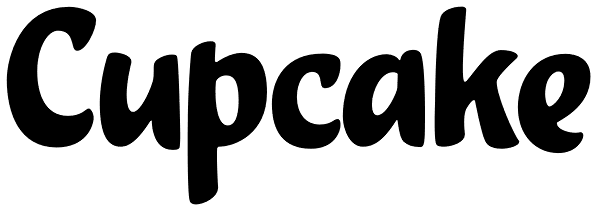
Cupcake
Cupcake is a font for those with a sweet tooth. It flares the taste buds with its creamy construct and makes them drool over a sandwich, a pasta, a cupcake, or a sweet beverage in your favourite café. Another packaging accomplishment by Koziupa and...